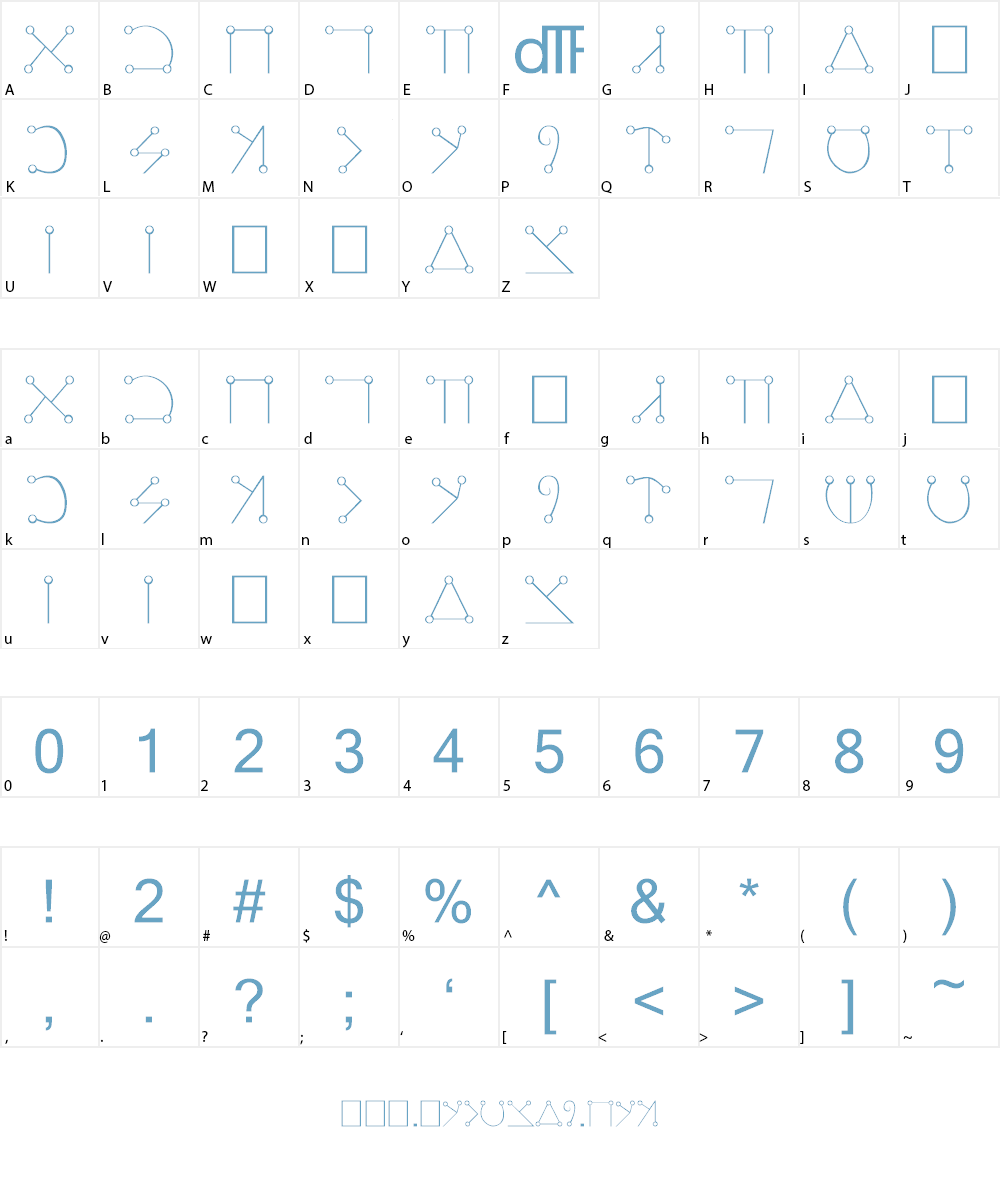
Angelic is a script that dates back to the 12th century and was used by magicians for encrypting their 'books of shadows' or grimoires. It is similar but not identical to other scripts such as 'Melachim' and 'Passing the River'. The Author used the specimen given in the Francis Barrett book 'The Magus' as a model for the design and only a few liberties have been taken with its alphabetic order or design. 'The Magus' is readily available for inspection should the more curious wish to compare my design with his.